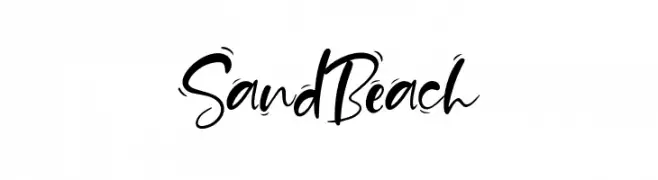
An elegant script font with flowing, cursive letterforms.
An elegant, flowing script font with graceful curves and decorative swashes.
A bold, dynamic brush script font with an artistic hand-drawn style.
A dynamic handwritten font with fluid strokes and a brush-like texture.